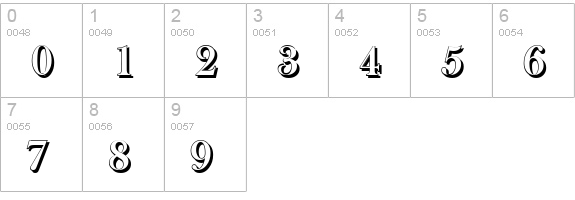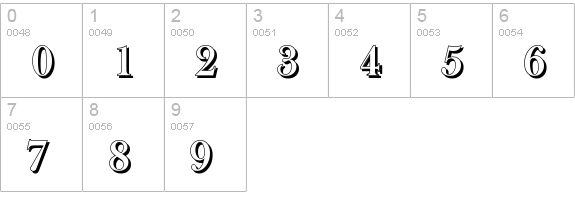
BaskerOldShadow-Bold Font Details
BaskerOldShadow-Bold is a strong, high-contrast variant in the BaskerOldShadow typeface family \xE2\x80\x94 well suited to headlines, attention-grabbing titles, and strong calls-to-action.
BaskerOldShadow-Bold is a stunning and bold font that exudes elegance and sophistication. With its intricate details and strong presence, this font is perfect for making a statement in your design projects. The sharp edges and shadow effects add a touch of drama and depth to your text, making it stand out from the crowd. Best of all, BaskerOldShadow-Bold is available for free download at FontsMarket.com! You can easily access this unique font and incorporate it into your designs without any cost. Whether you're working on a branding project, poster design, or any other creative endeavor, BaskerOldShadow-Bold is sure to make a lasting impression. Don't miss out on this opportunity to enhance your typography with this striking and versatile font.